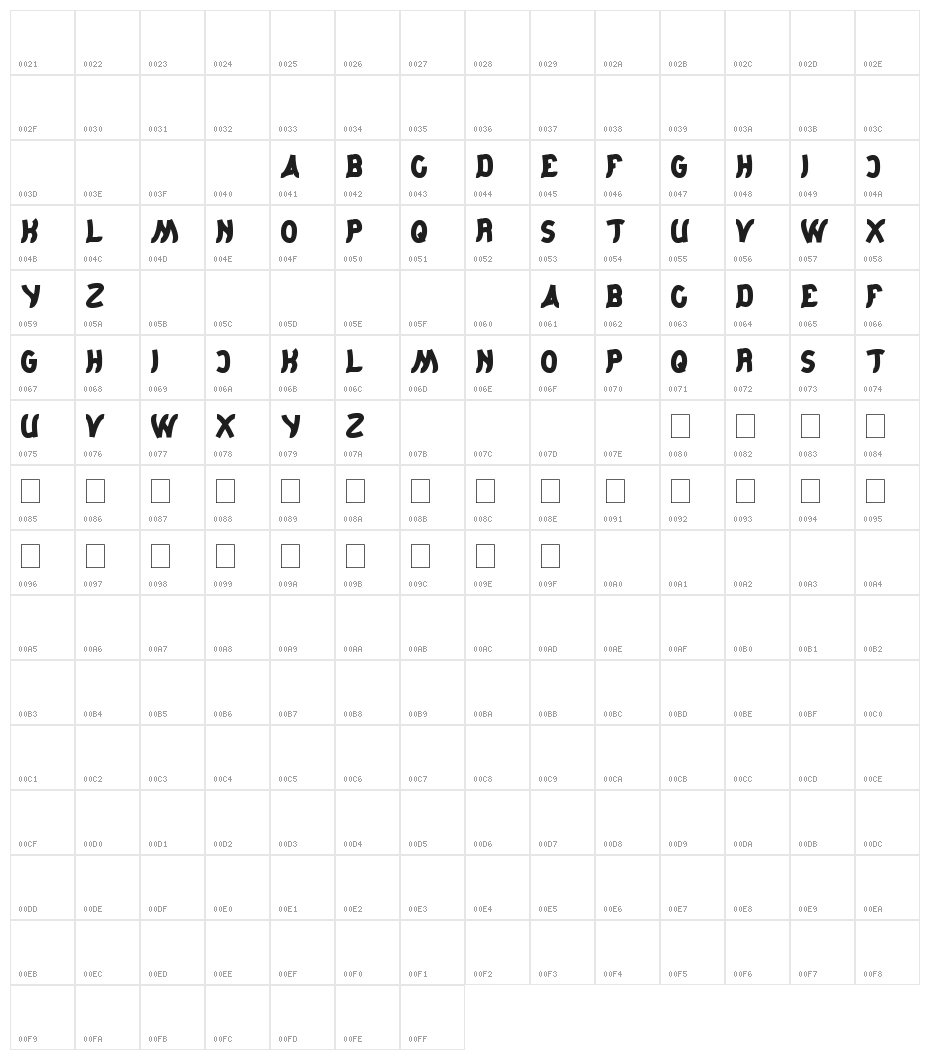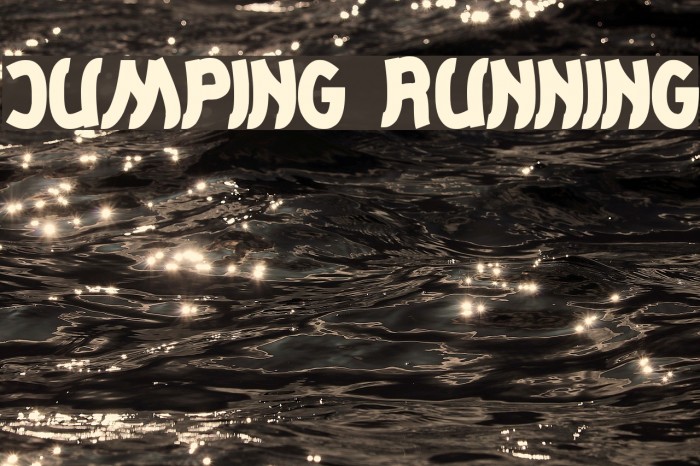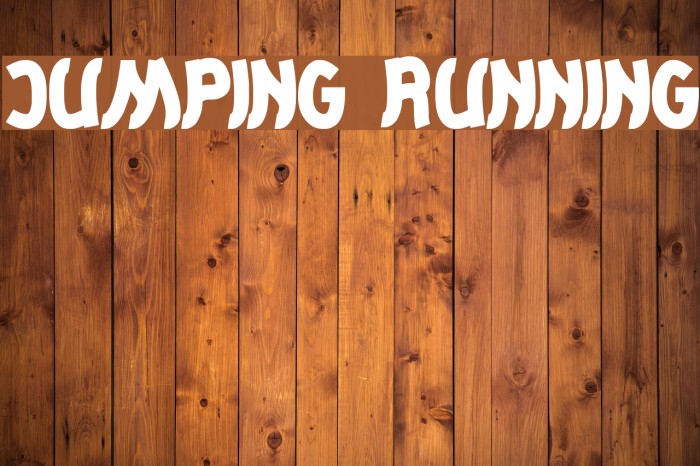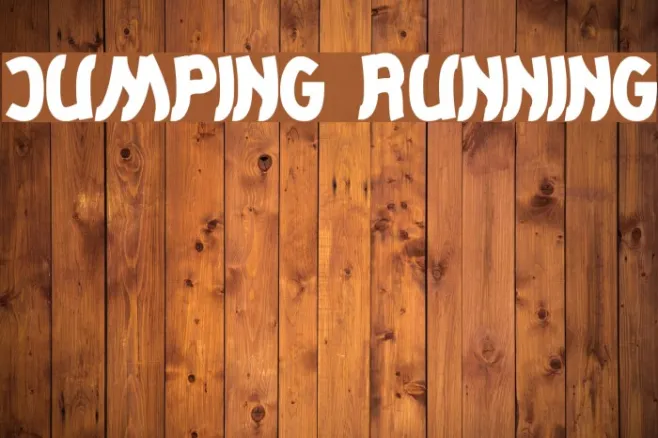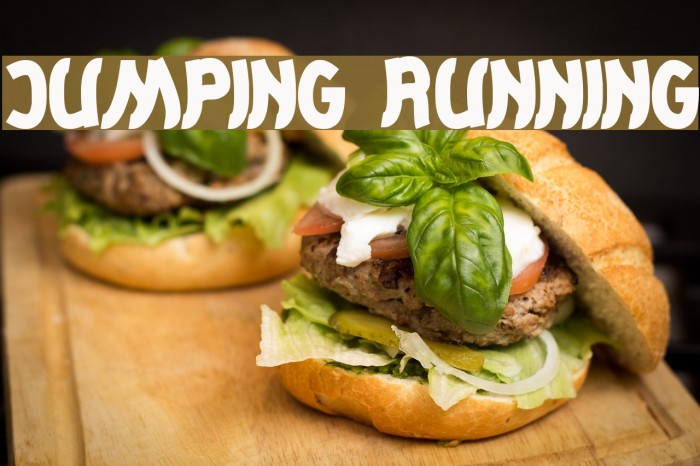
Jumping Running Font
Jumping Running Description
This font features a bold and dynamic style with a playful and energetic appearance. The characters are thick and robust, with a slight slant that adds a sense of motion and liveliness. The strokes are uneven, giving it a hand-drawn feel that is both informal and engaging. The overall design is reminiscent of graffiti or street art, making it ideal for projects that require a youthful and vibrant touch. The uppercase letters are consistent in height, while the curves and angles of each character contribute to its distinctive and eye-catching look.
| Overall Style | Playful, Energetic, Hand-drawn |
| Use Case | Headlines, Posters, Branding |
| Proposed Projects | Ideal for posters, event flyers, children's book covers, and branding for youthful or energetic products. |